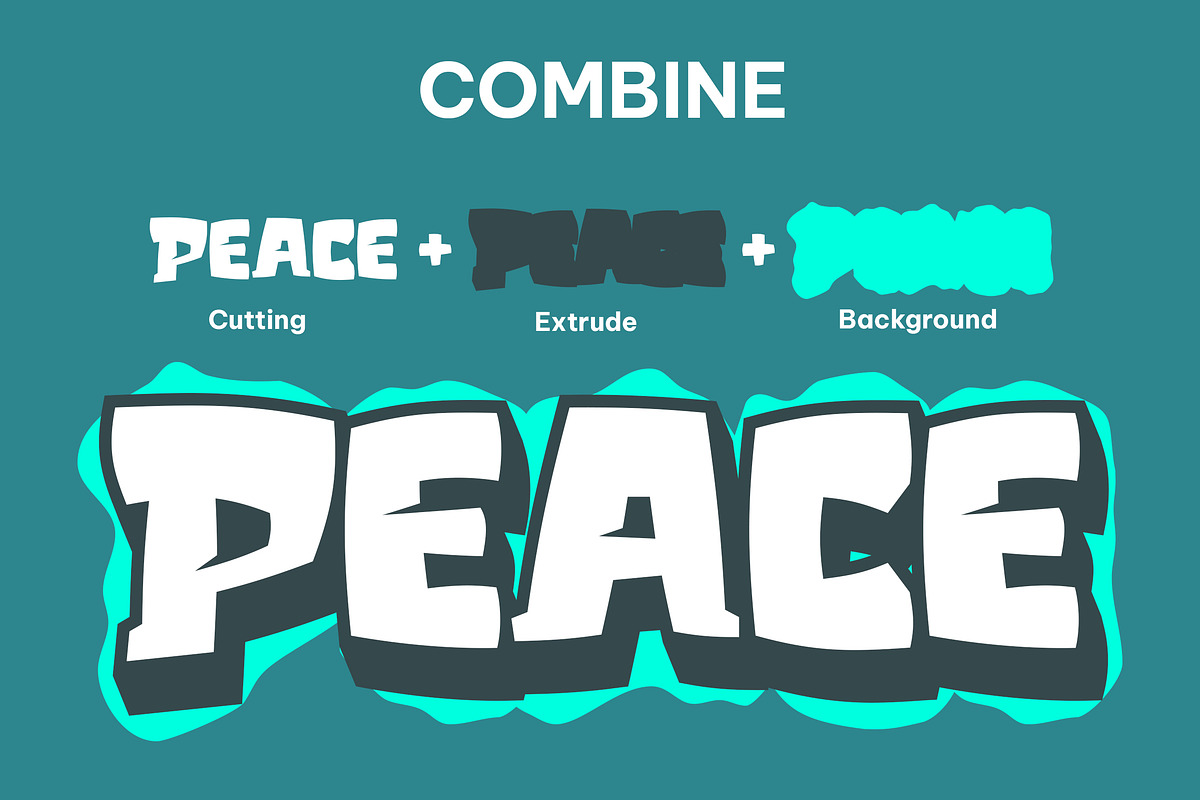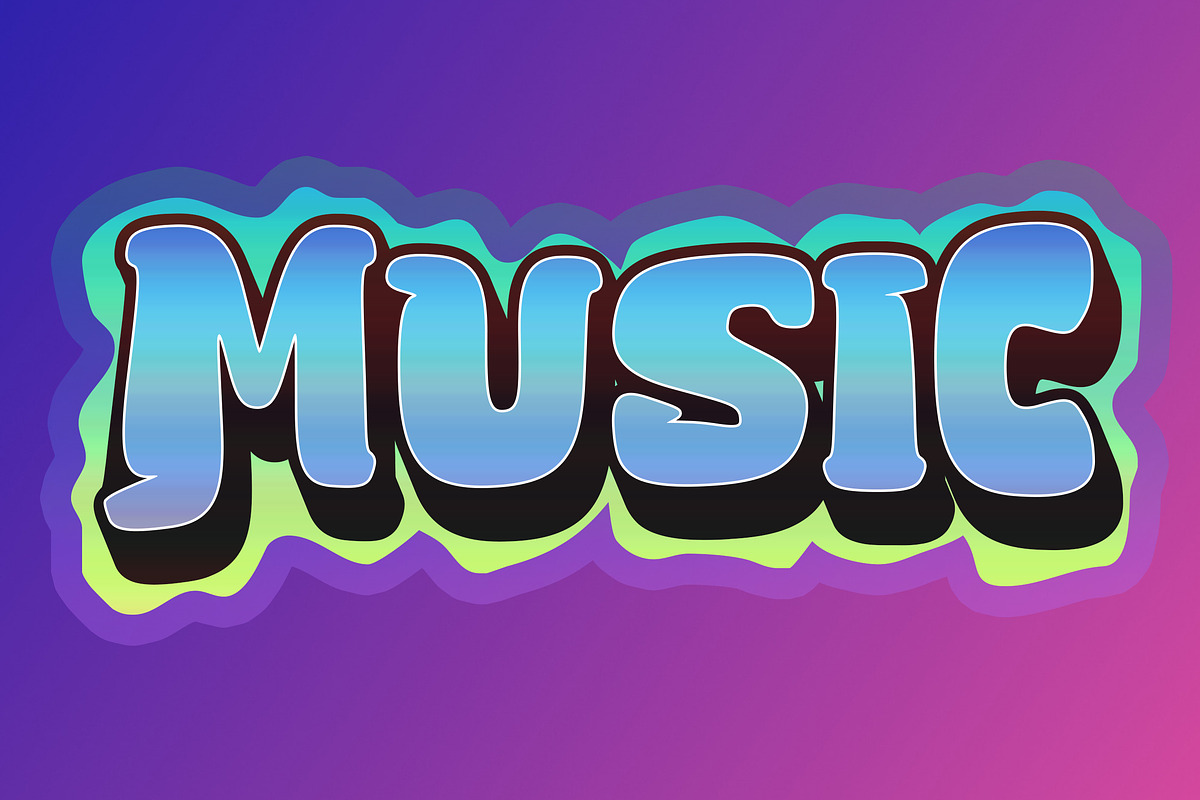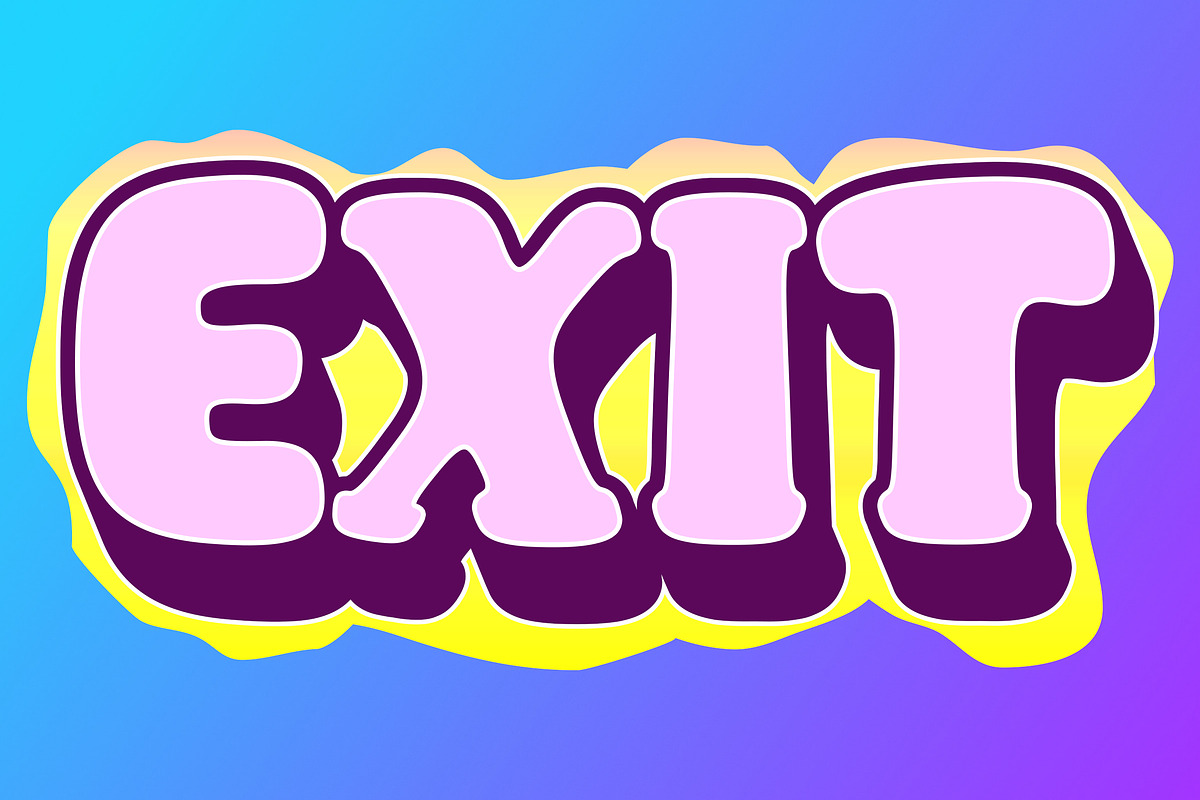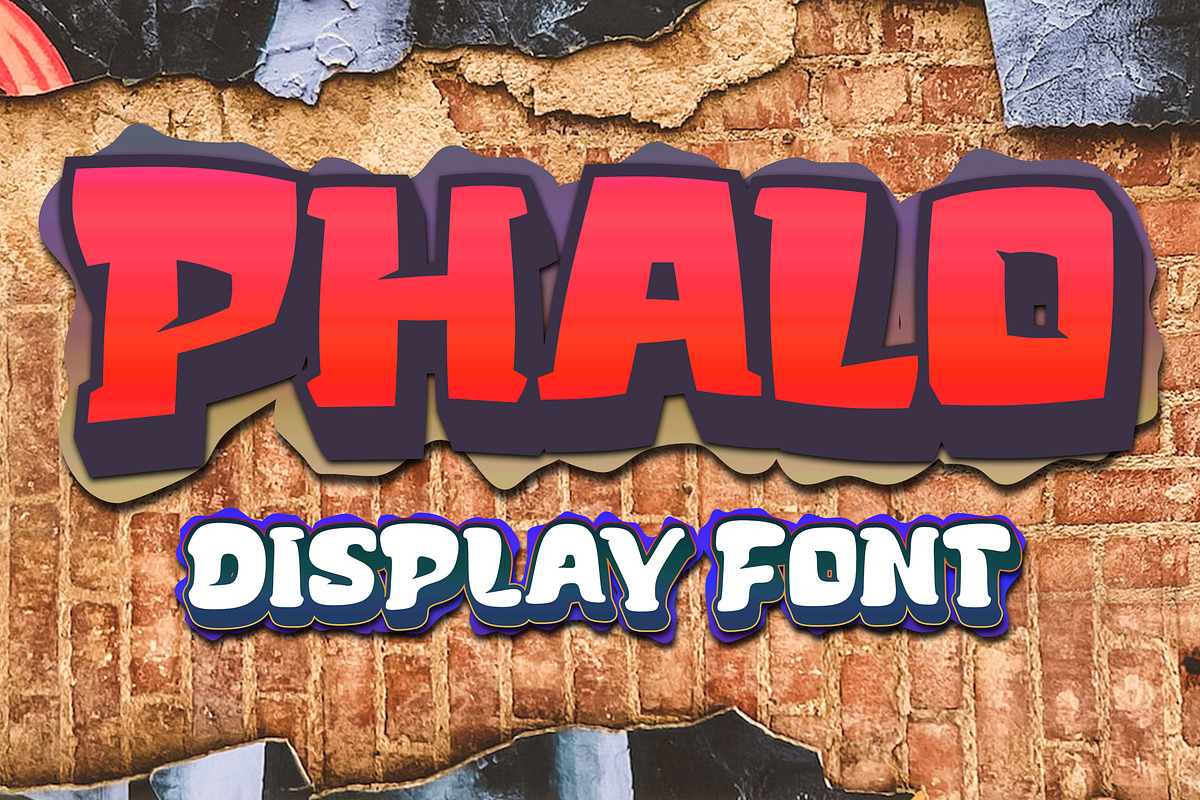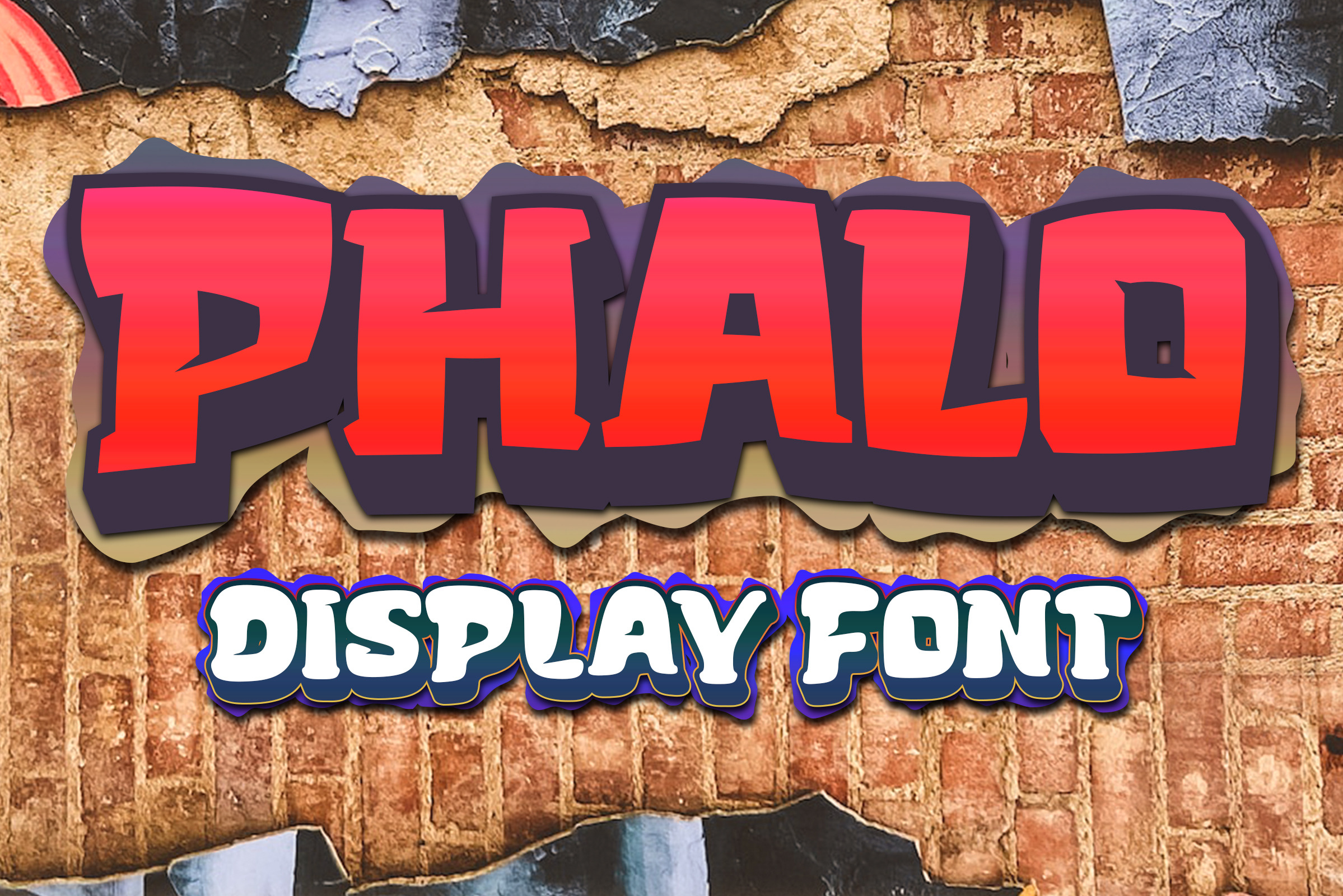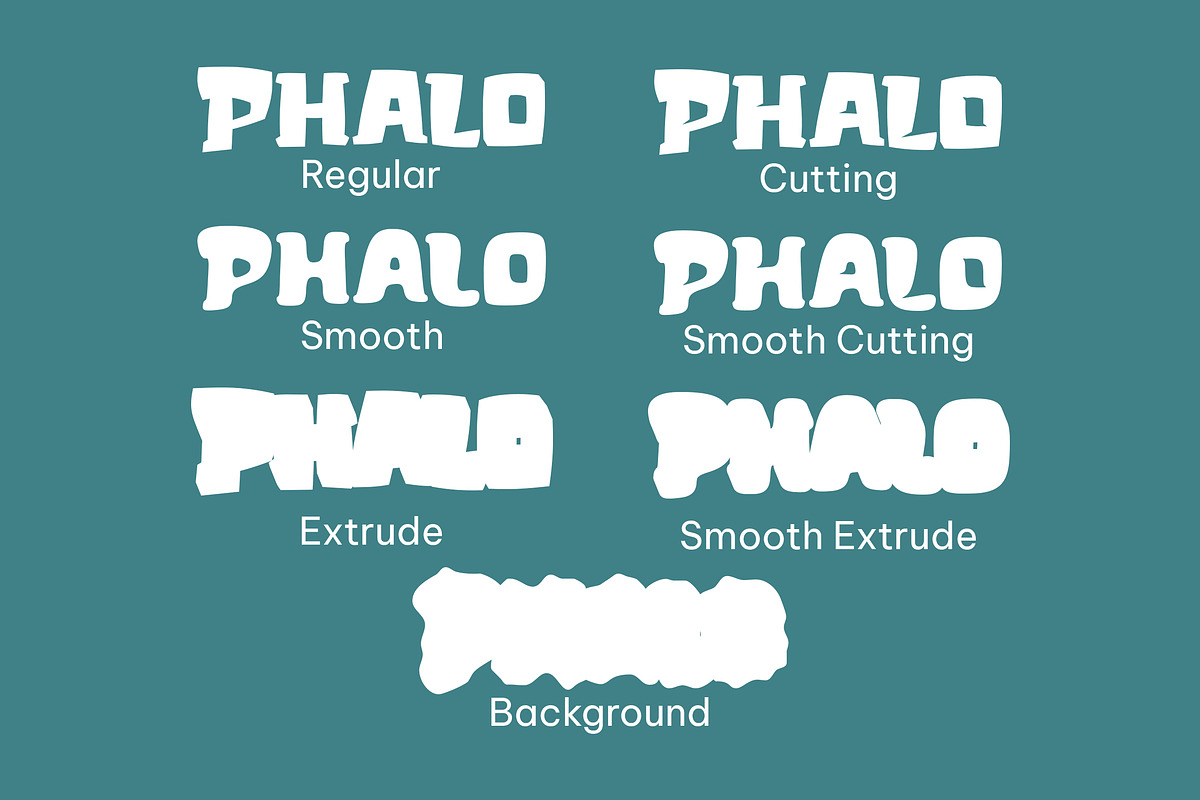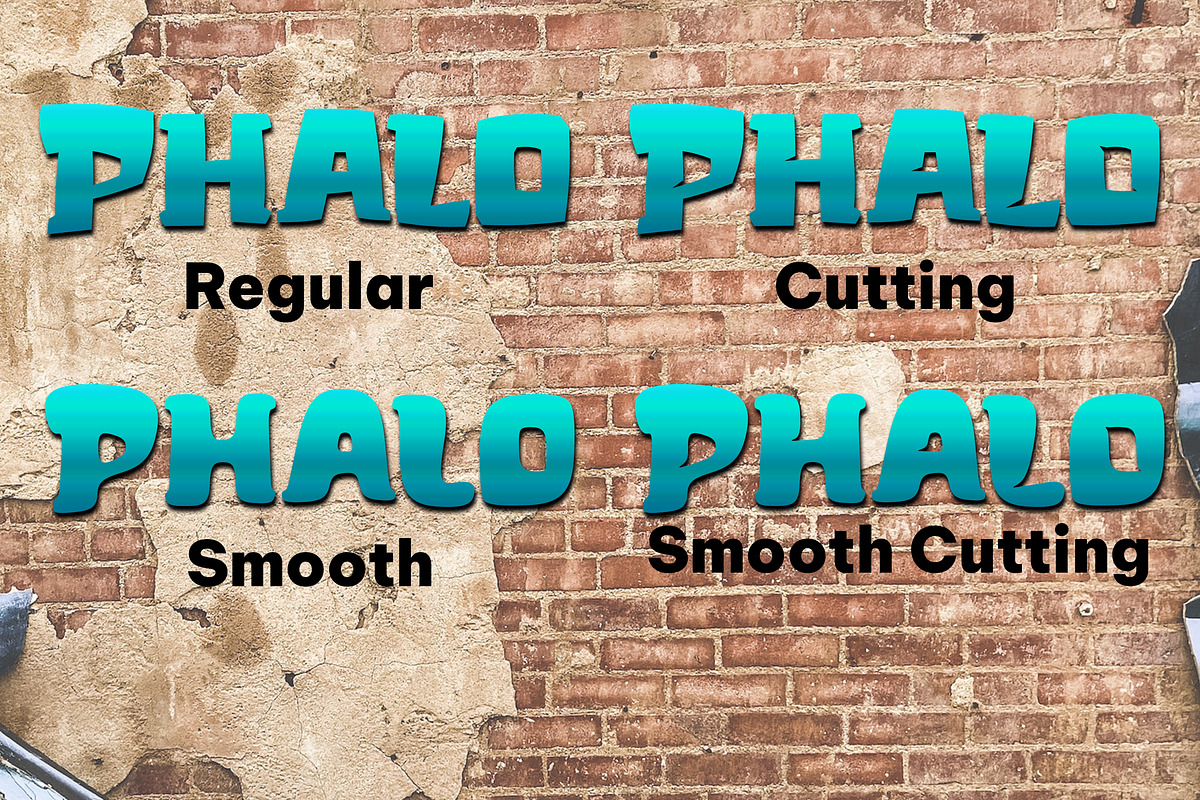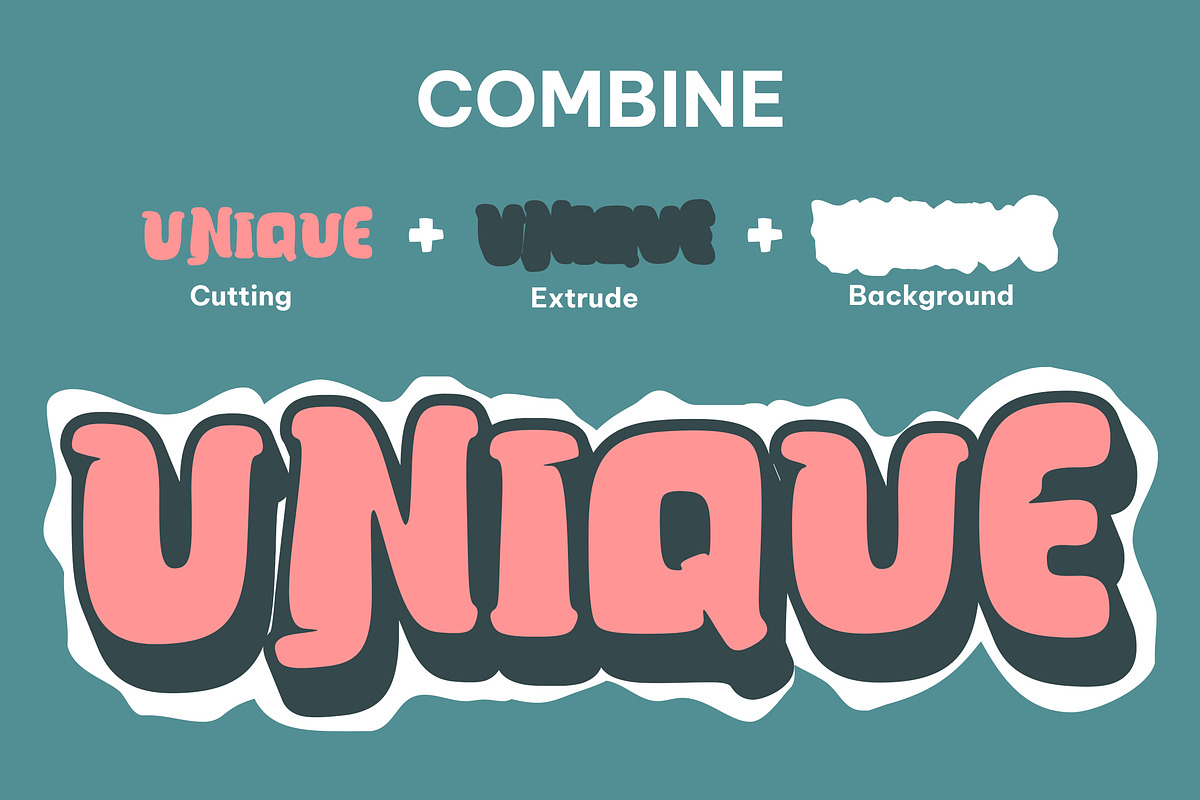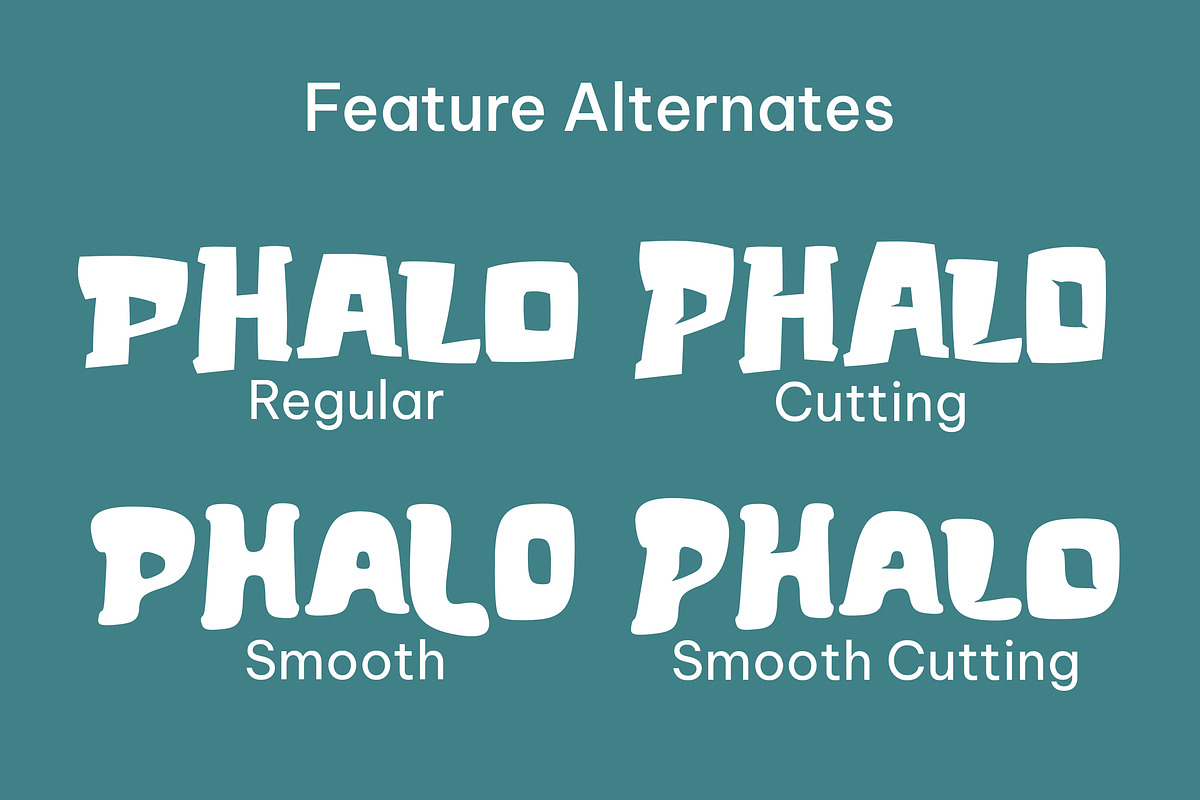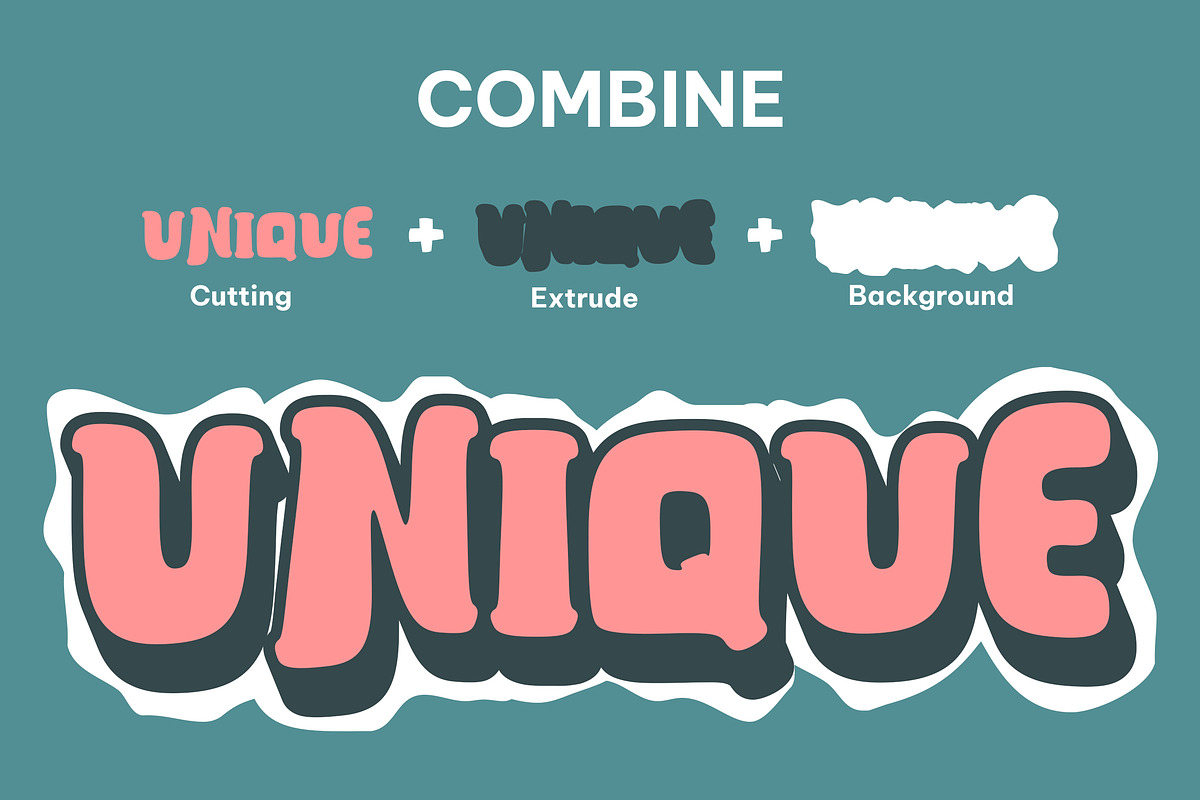
Phalo - Display Font
Phalo is an display font characterized by sharp edges and a bold look. Ideal for music posters, apparel designs, shirts, and streetwear, this font brings a touch of edginess to your projects. Whether you want to create a strong and powerful statement or simply add a touch of attitude to your designs.